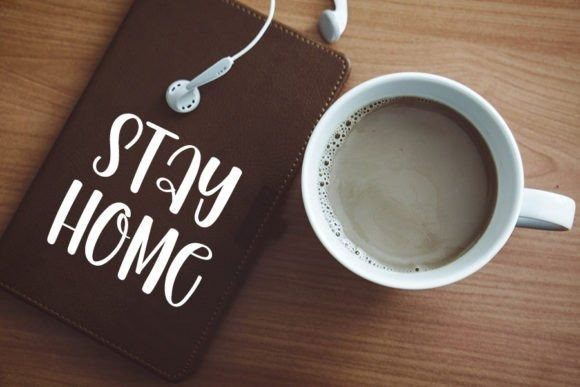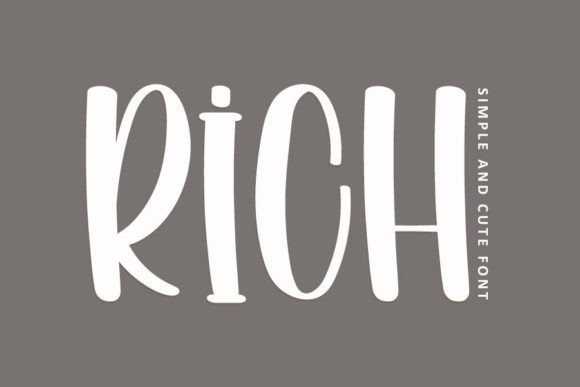
Rich Fun Font
Rich Fun Font is a fun and friendly handwritten font with a contemporary atmosphere and impeccable form. Whimsical and a bit quirky, this font will brighten up each of your designs. Add it confidently to your projects, and you will love the results.